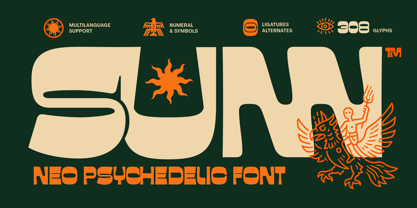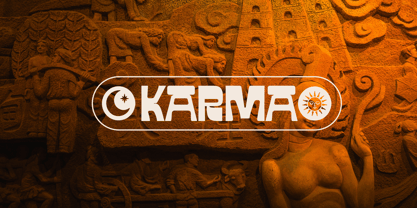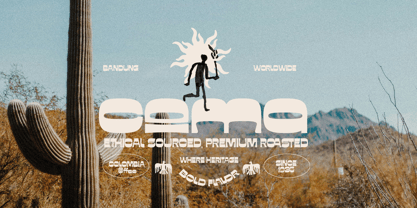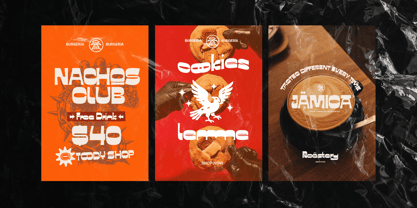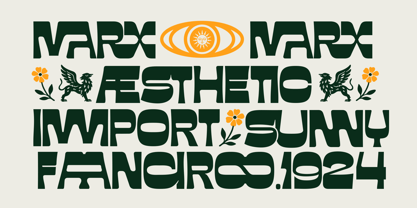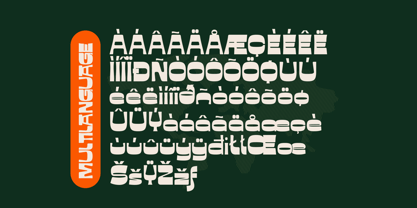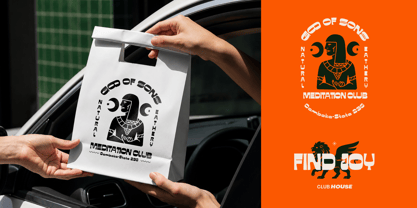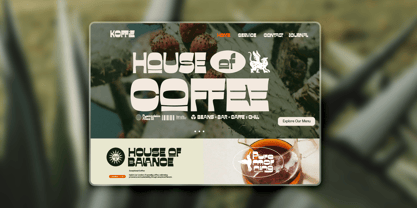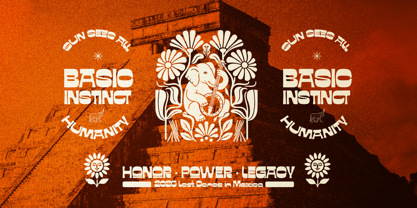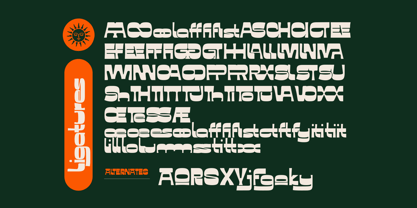
Fd Sunn
by Fortunes Co
The Fd Sunn Font Family was designed by Ramandhani Nugraha and published by Fortunes Co. Fd Sunn contains 1 styles. More about this family
SUNN is a bold neo-psychedelic display font inspired by retro futurism, desert culture, folk symbolism, and experimental typography. Designed with strong geometric forms, unique rounded corners, and highly recognizable silhouettes, SUNN delivers an expressive visual identity perfect for modern branding and statement-making designs. This typeface combines the energy of 70s psychedelic aesthetics with contemporary experimental design, resulting in a versatile font that feels nostalgic, futuristic, and distinctly original.
Designers: Ramandhani Nugraha
Foundry: Fortunes Co